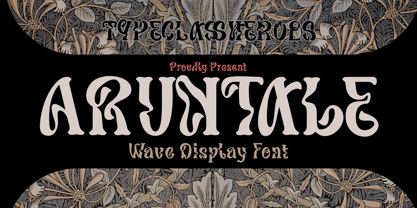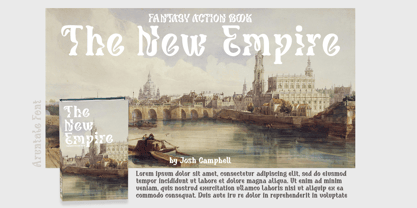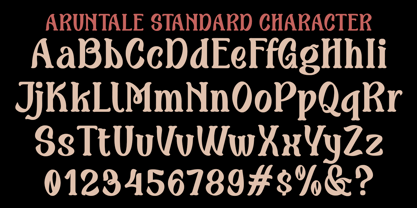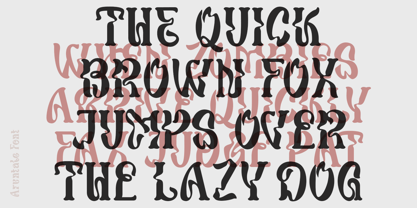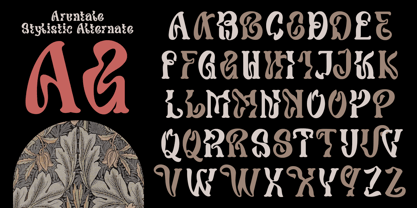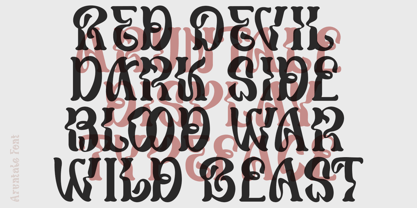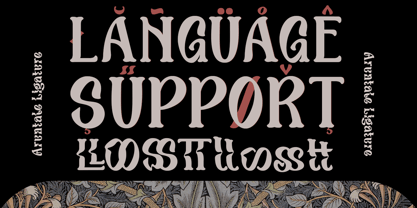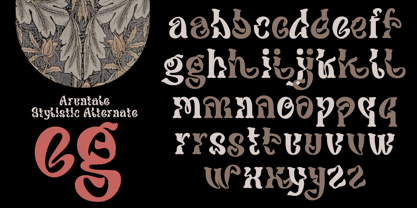
Aruntale
by TypeClassHeroes
The Aruntale Font Family was designed by Suandana ipandemade and published by TypeClassHeroes. Aruntale contains 1 styles. More about this family
Its elegant proportions make it perfect for everything from body text to headlines, making it a perfect choice for any project. You will get vintage, classy, elegant, and certainly unique logos with this font. It easily cooperates together and is perfect for creating the traditional style great for logotype or badge for your logo with this font. Come with a lot of alternative and ligature style.
Designers: Suandana ipandemade
Foundry: TypeClassHeroes